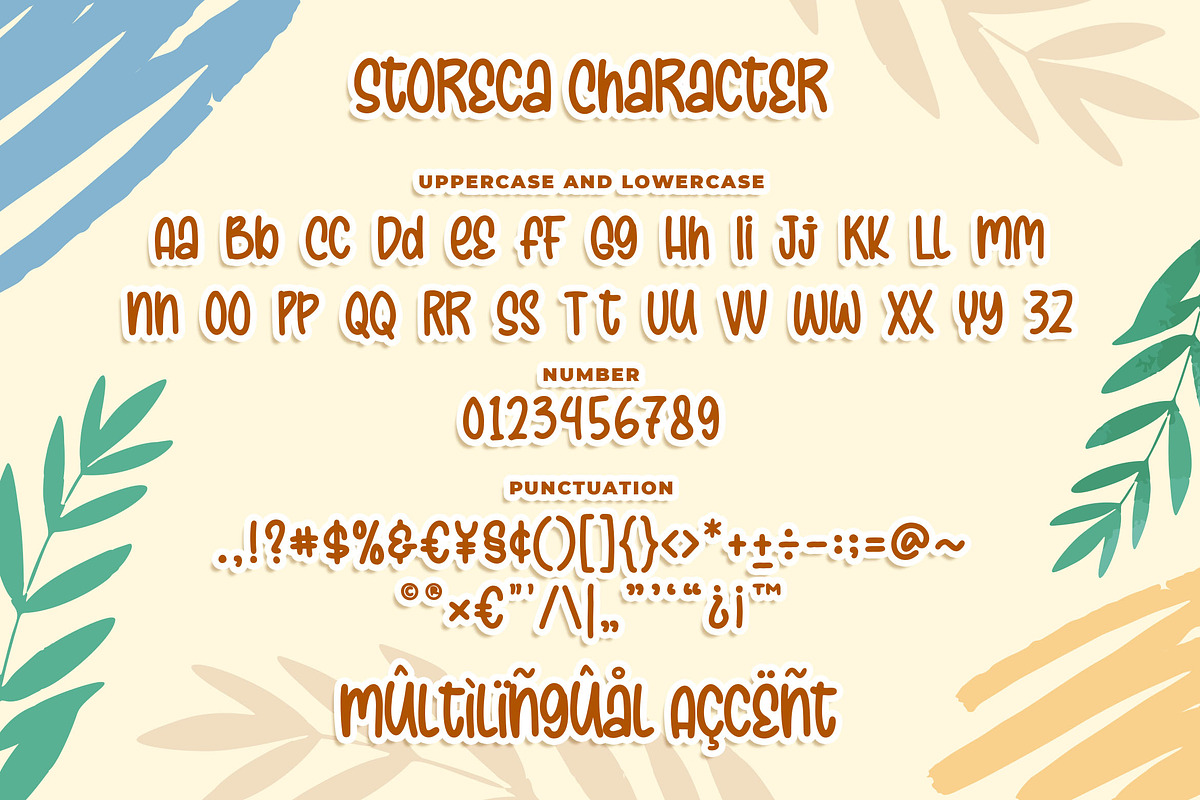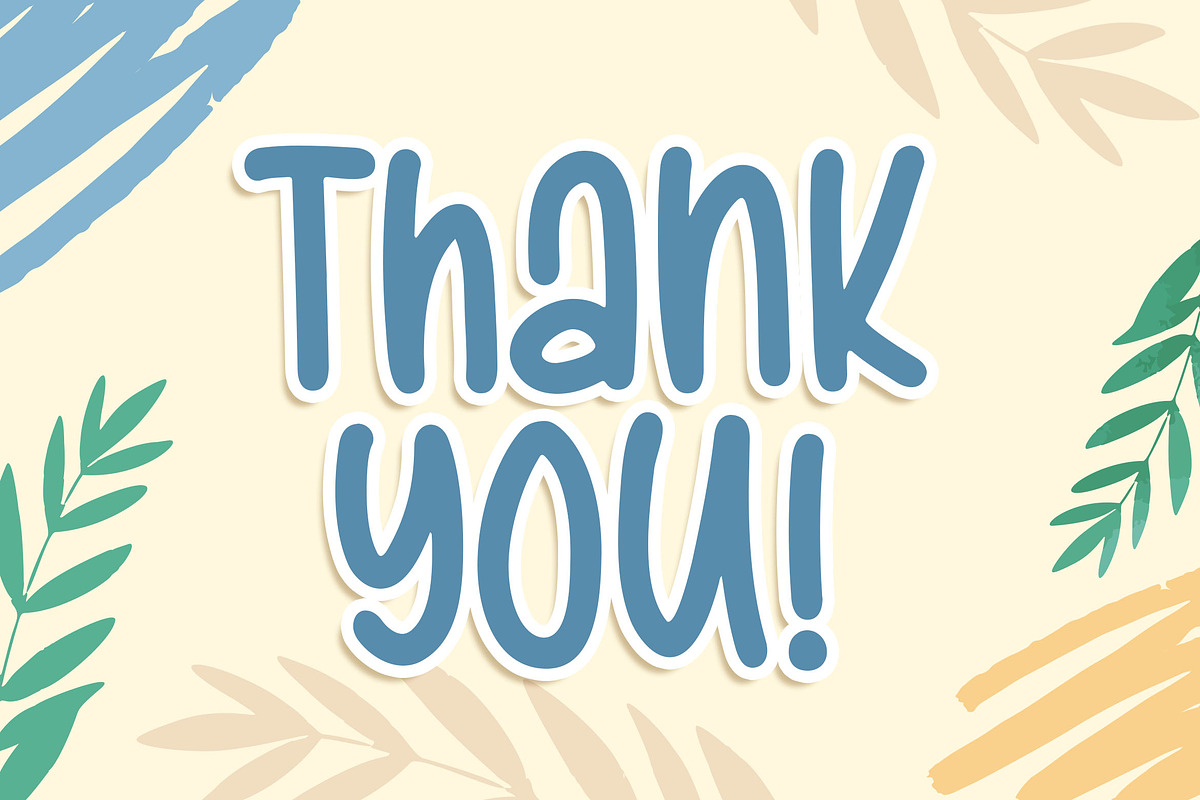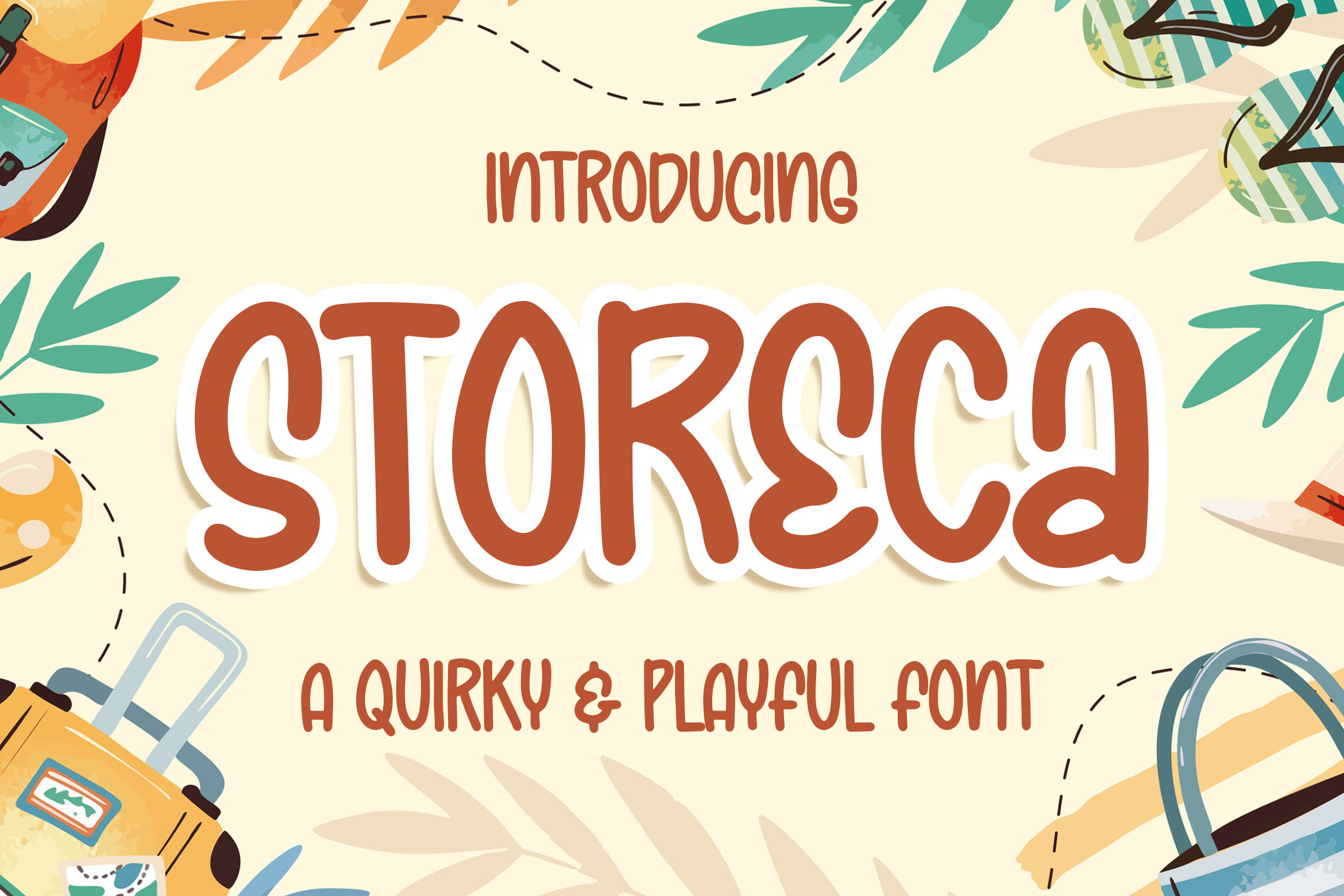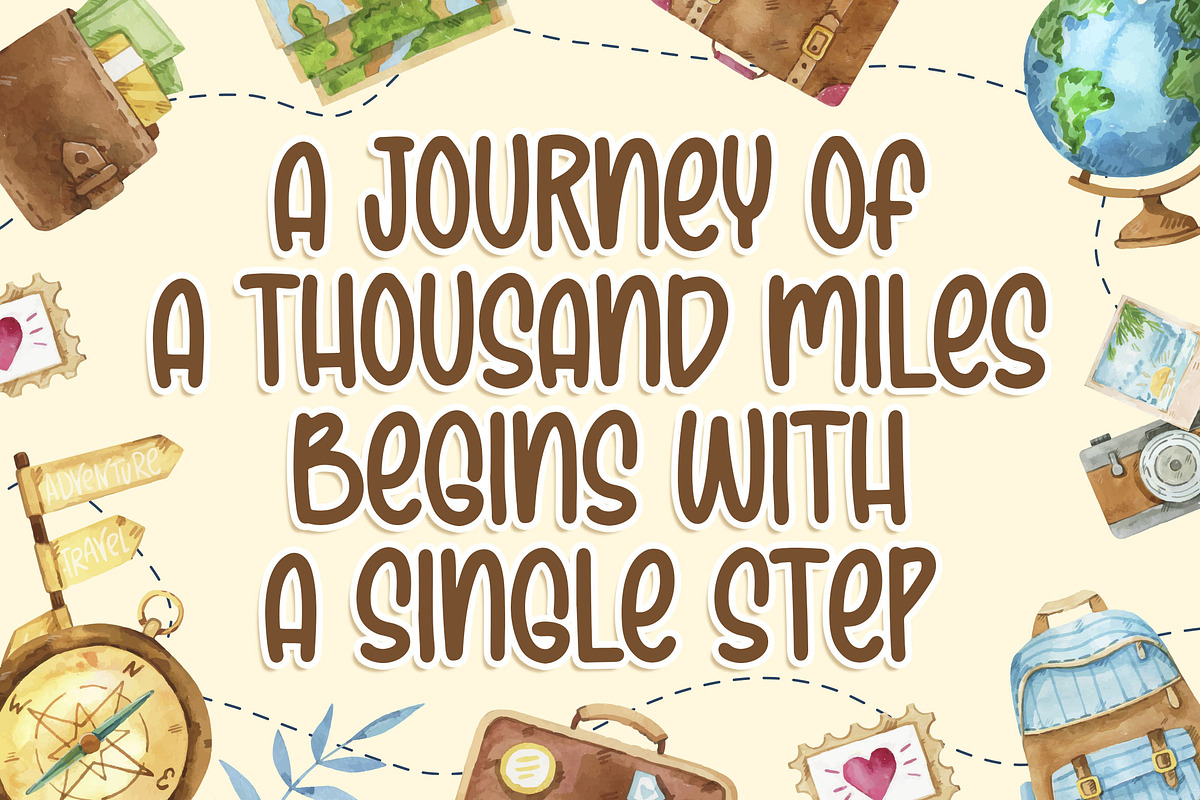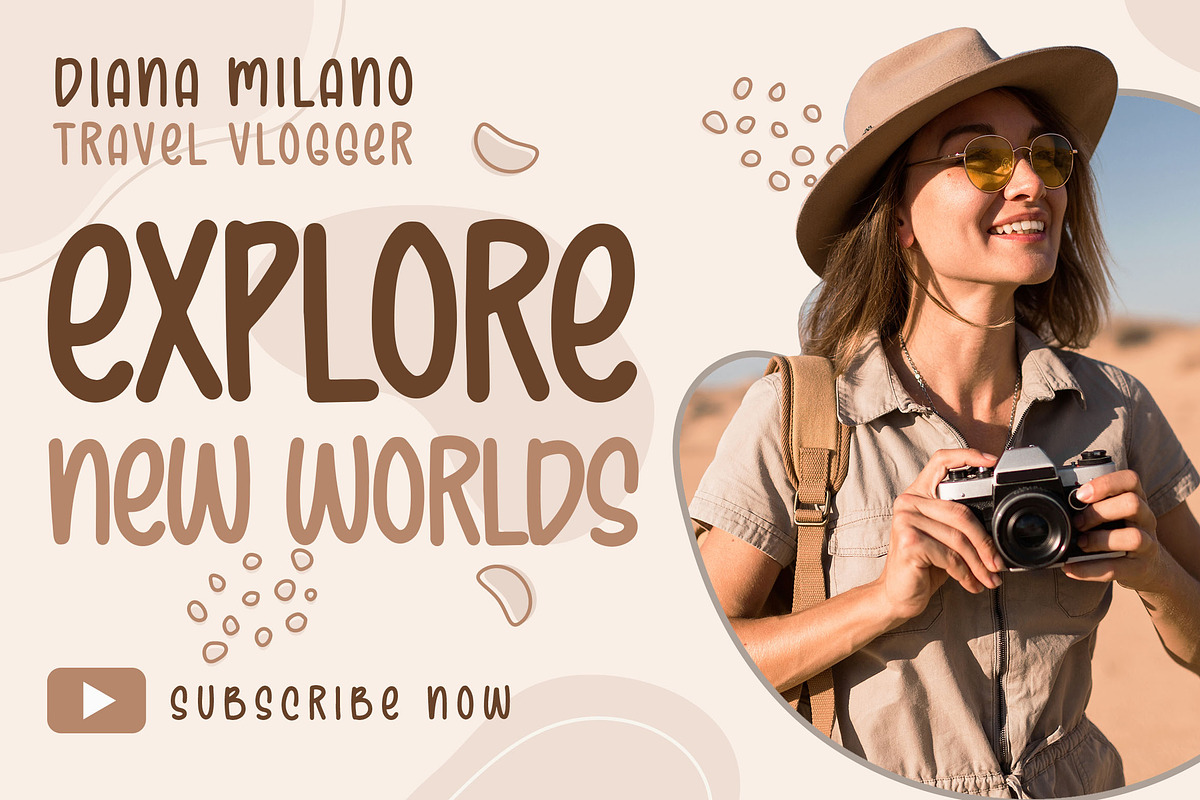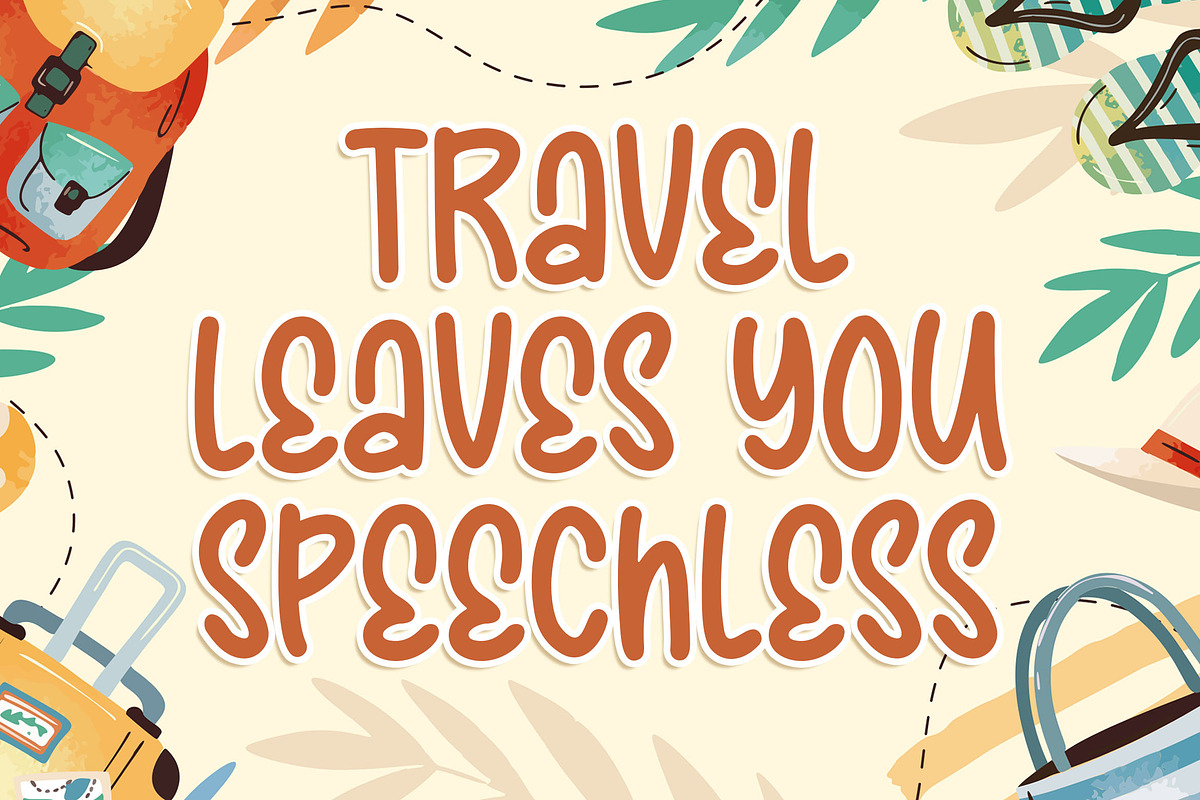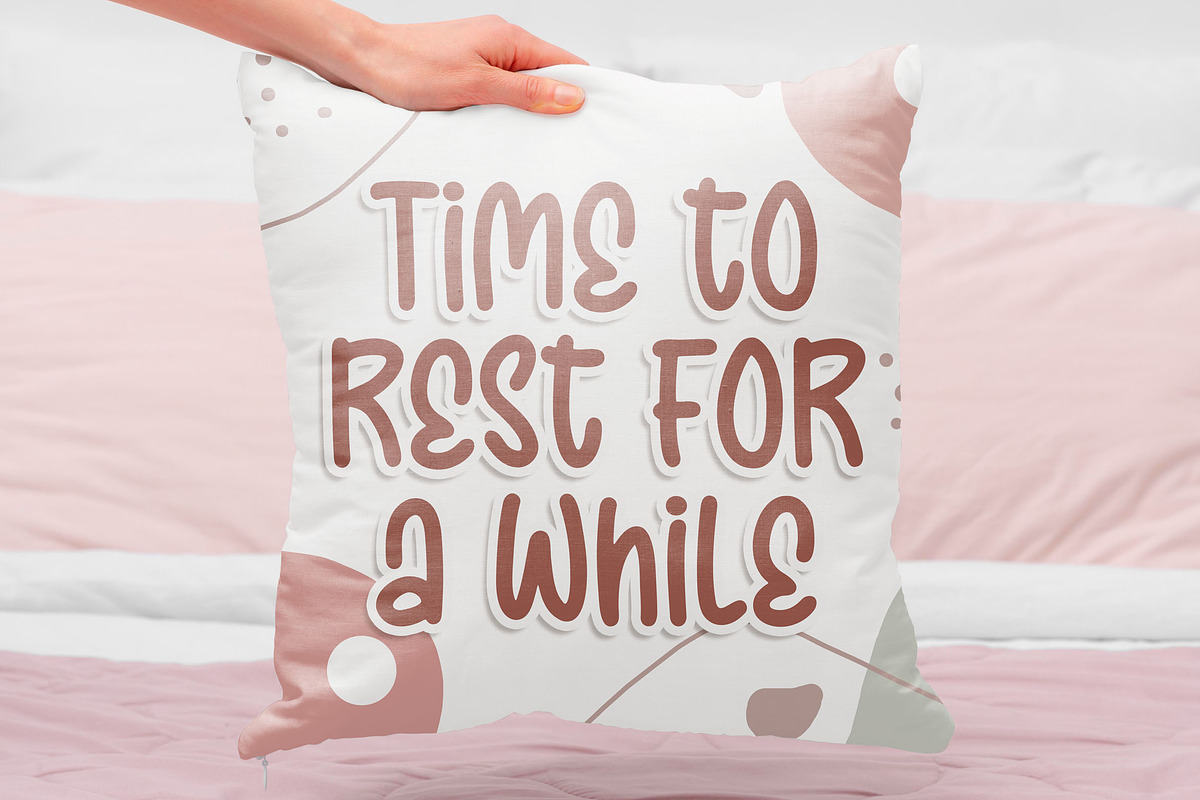
Storeca a Quirky & Playful Font
Introducing of our new product the name is Storeca a Quirky & Playful Font, Storeca inspired by Bouncy quirky style with a fun theme very good for Logotype, kids poster, flyer, childrenbook, cartoon, comic etc